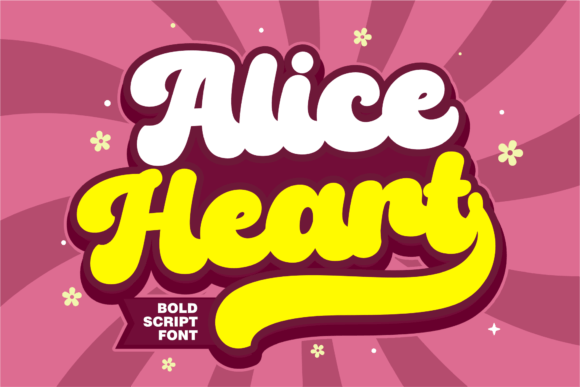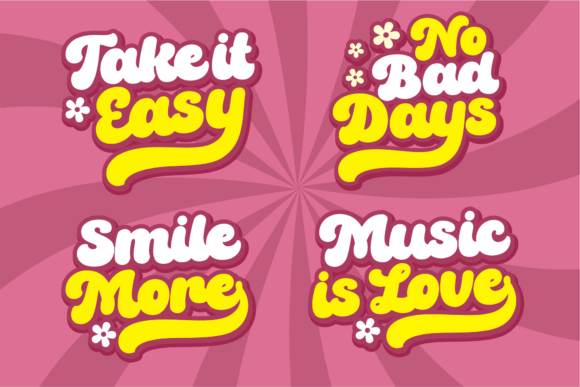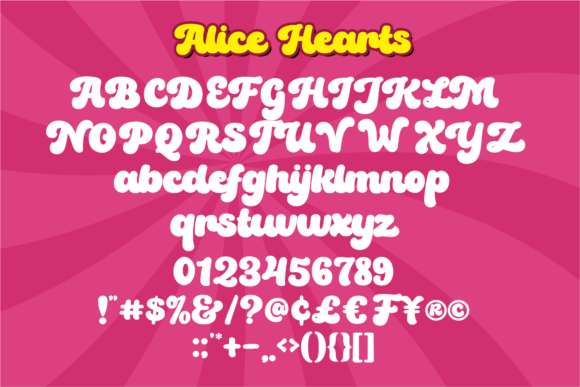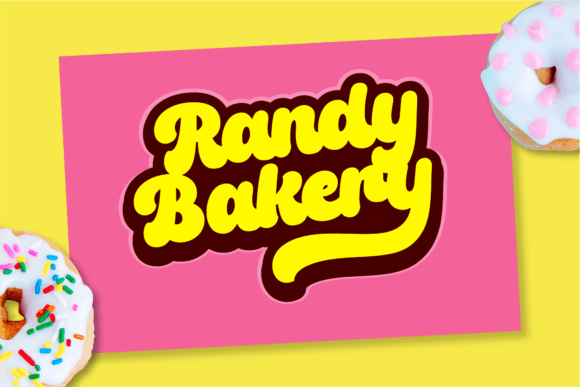
About Alice Heart
Alice Heart is a groovy retro and bold handwritten font. Use this display font to add that special retro touch to any design idea you can think of! Masterfully designed to become a true favorite, this font has the potential to bring each of your creative ideas to the highest level!